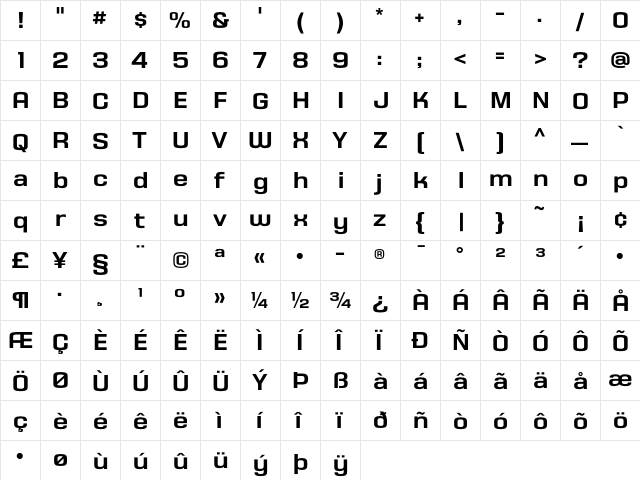
HouseGothicHG23Text Bold
| Designer | Allen Mercer/Tal Leming |
Design Context for HouseGothicHG23Text Typeface
HouseGothicHG23Text has the quiet confidence of well-executed sans-serif typography: versatile, unobtrusive, and dependable at any size. Its bold stroke weight gives it real presence on the page.
Well-suited to navigation labels, product packaging, and anywhere legibility at scale is essential.
Font Pairing: Use HouseGothicHG23Text for headlines alongside a lighter-weight sans or serif for body copy to establish clear visual hierarchy.
Pro Tip: Use HouseGothicHG23Text for UI labels, navigation, and short-form body copy where clean legibility is the priority.